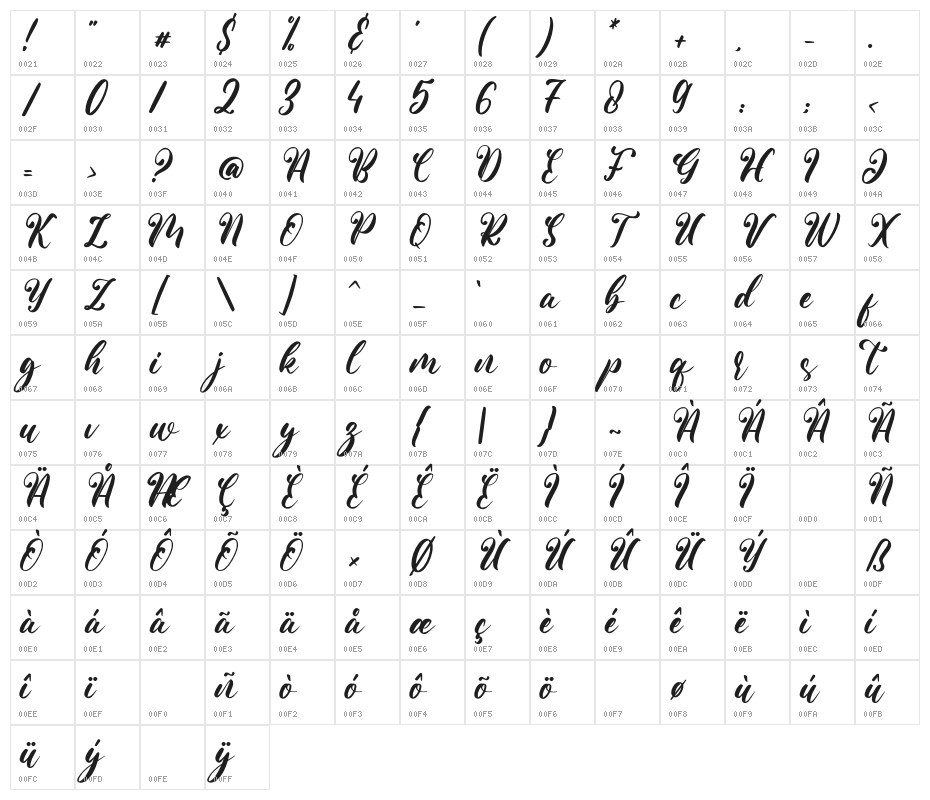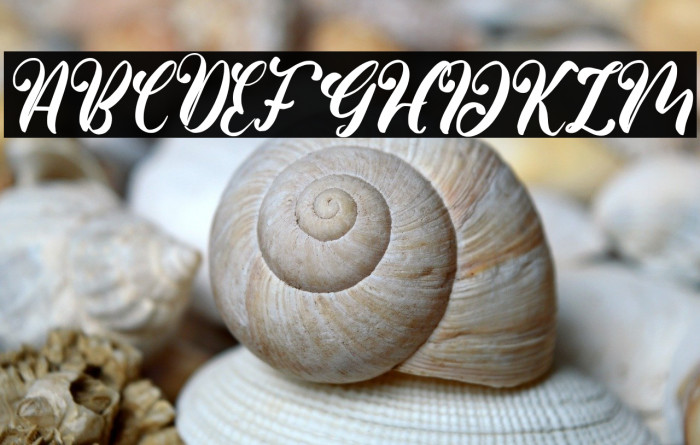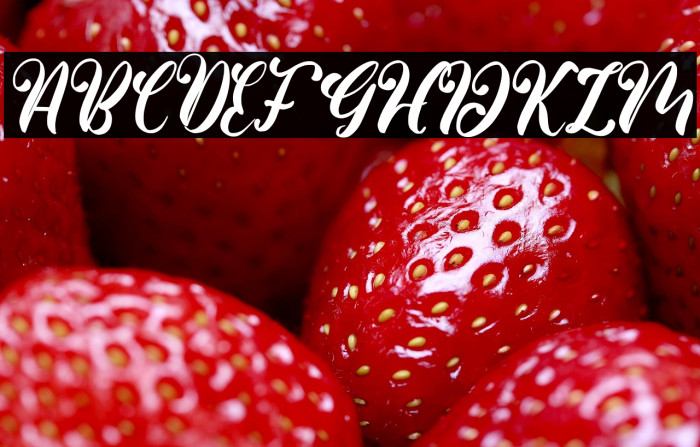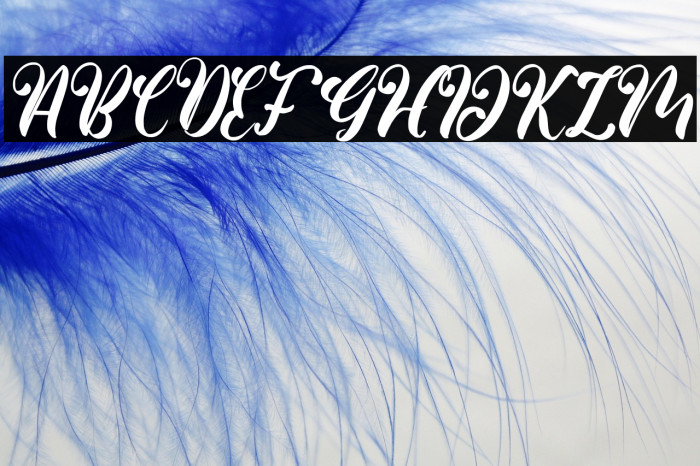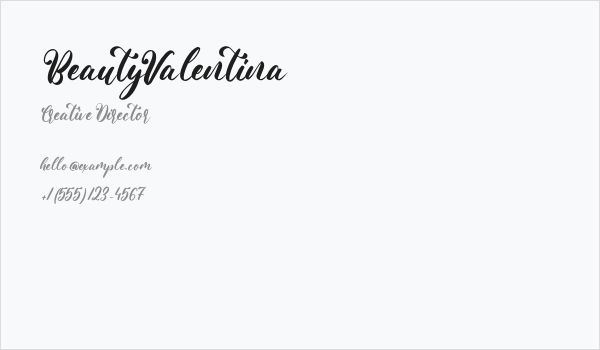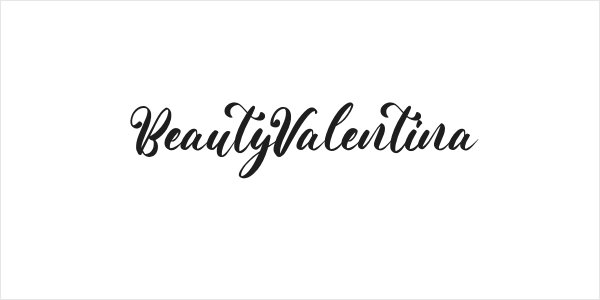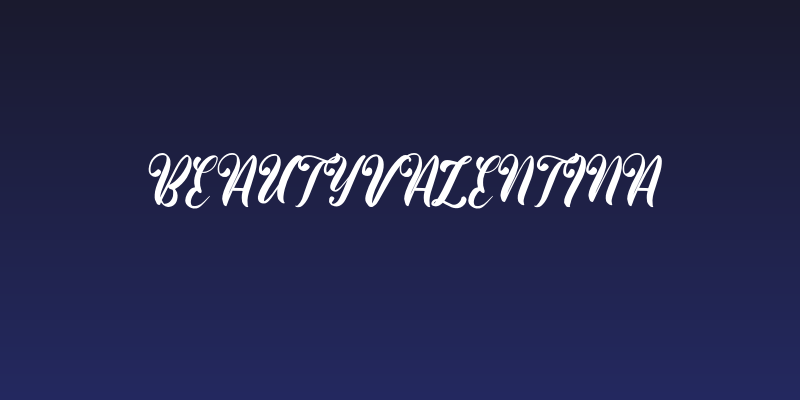
BeautyValentina Font
BeautyValentina Description
This elegant script font features flowing, cursive letters with a modern flair. The uppercase letters are bold and sweeping, with intricate loops and curves that add a touch of sophistication. The lowercase letters maintain a consistent style, with smooth connections between characters, creating a seamless flow in text. Numbers and special characters are designed with the same attention to detail, ensuring a cohesive look across all glyphs. The font's high contrast between thick and thin strokes enhances its readability while maintaining an artistic appeal. Its overall style is both classic and contemporary, making it versatile for various design needs.
| Proposed Projects | Ideal for wedding invitations, branding, logo design, and elegant packaging. |